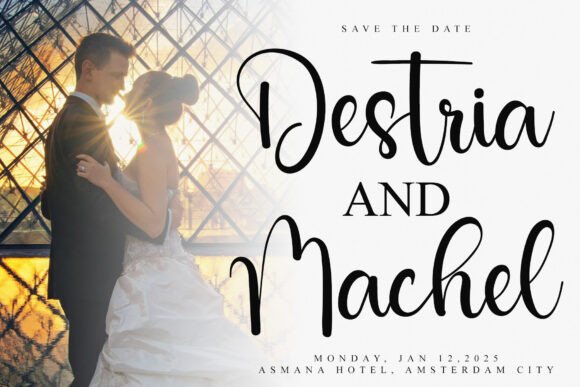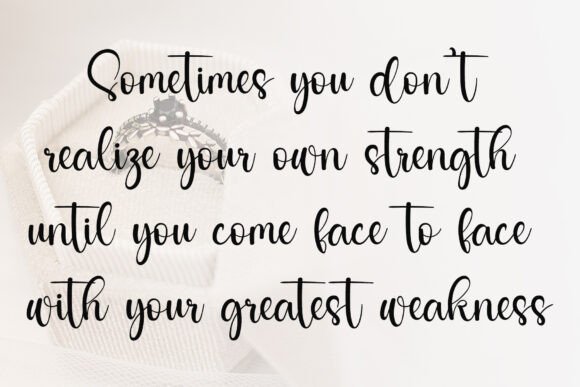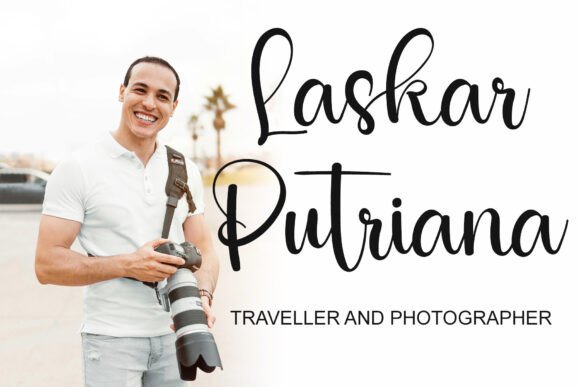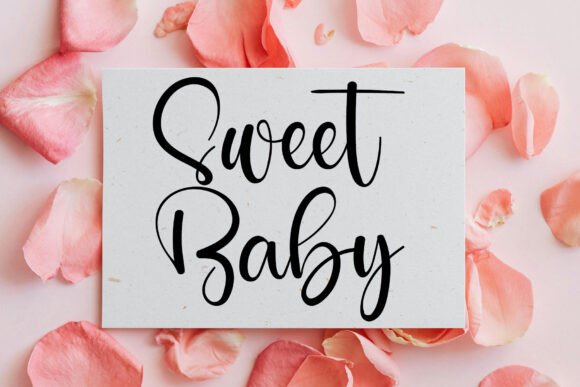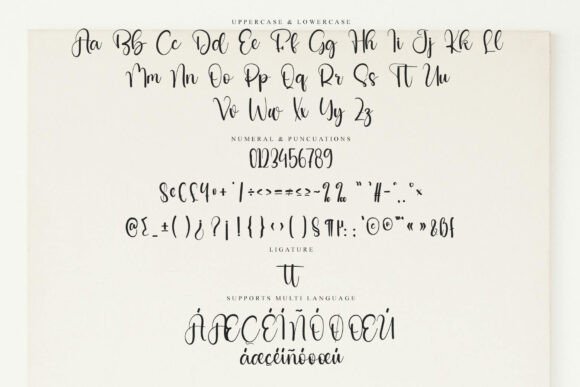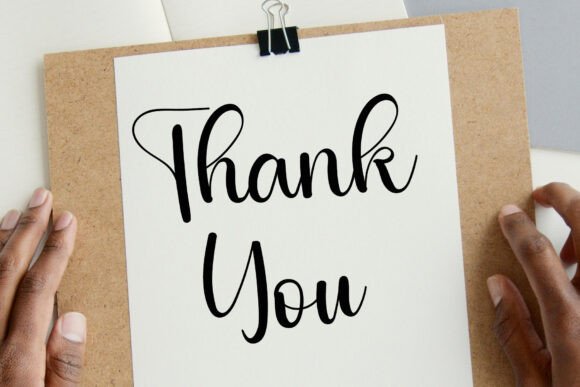
Introducing Grubby Font: Elevate Your Designs with Timeless Elegance
In the world of typography, a well-crafted font can make all the difference in transforming a design from ordinary to extraordinary. For designers and crafters seeking a stylish and contemporary handwritten font, Grubby Font is an exceptional choice. Inspired by the beauty of classic calligraphy, Grubby offers a perfect blend of elegance and modernity, making it an ideal addition to your typographic arsenal.
The Essence of Grubby Font
Grubby is a stylish handwritten font that exudes a contemporary atmosphere while maintaining impeccable form. Its design is rooted in timeless classic calligraphy, ensuring that it remains relevant and sophisticated. The font’s balanced and varied characters make it versatile and adaptable to a wide range of projects, from digital designs to print materials.
Key Features of Grubby Font
- Contemporary yet Classic: Grubby Font strikes the perfect balance between modern style and classic elegance, making it suitable for a variety of design applications.
- Handwritten with Flair: The font’s handwritten nature adds a personal touch to your designs, infusing them with warmth and character.
- Balanced and Varied: Grubby’s characters are meticulously crafted to ensure balance and variation, allowing for visually appealing and dynamic text arrangements.
- Impeccable Form: The font’s design is guided by a commitment to impeccable form, ensuring that it meets the highest standards of typographic excellence.
Applications of Grubby Font
Grubby Font’s versatility makes it an excellent choice for a wide range of design projects, including:
- Branding and Logo Design: Use Grubby to create distinctive and memorable brand identities that stand out from the crowd.
- Digital and Print Materials: Enhance your website, social media graphics, brochures, and posters with the elegant and modern feel of Grubby Font.
- Packaging Design: Add a touch of sophistication to your product packaging with Grubby’s stylish and contemporary aesthetic.
- Stationery and Invitations: Create beautiful and eye-catching stationery, invitations, and greeting cards that showcase your personal style.
Why Choose Grubby Font?
With so many fonts available, why should you choose Grubby for your design projects? Here are a few compelling reasons:
- Unique and Distinctive: Grubby Font offers a unique and distinctive style that sets it apart from more generic fonts.
- Elegant and Sophisticated: The font’s classic calligraphy inspiration lends an air of elegance and sophistication to your designs.
- Versatile and Adaptable: Grubby’s balanced and varied characters make it adaptable to a wide range of design applications and styles.
Grubby Font is a stylish and contemporary handwritten font that brings a touch of timeless elegance to your designs. With its impeccable form, balanced and varied characters, and classic calligraphy inspiration, Grubby is an excellent choice for designers and crafters seeking to elevate their projects. Whether you’re working on branding, digital materials, packaging, or stationery, Grubby Font is sure to make a lasting impression.